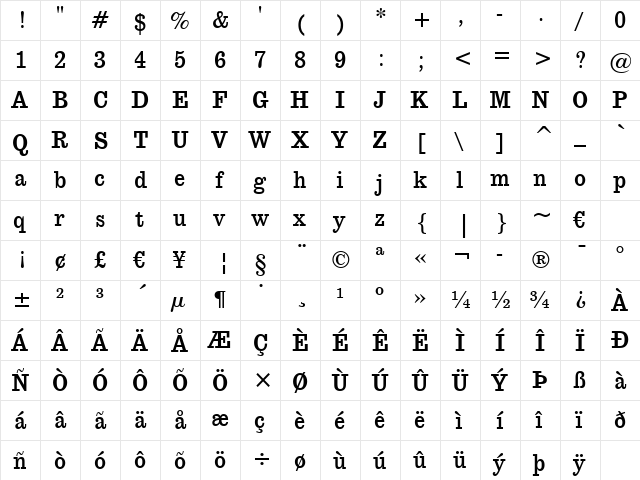
Egyptian710 BT Regular
Design Context for Egyptian710 BT Typeface
Egyptian710 BT combines the readability of serif typography with the visual weight of a slab construction, resulting in a typeface that feels both authoritative and approachable.
Suited to magazines, political campaign materials, bold packaging, and any setting where authority matters.
Pro Tip: Use Egyptian710 BT for headlines and subheadings where its slab serifs can make an impression. It also holds up well in mid-size body copy thanks to its sturdy construction.